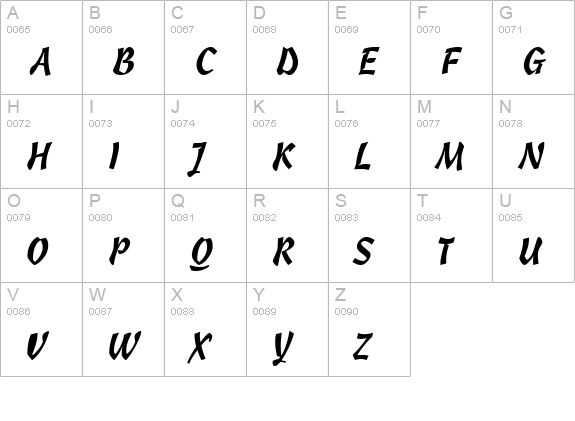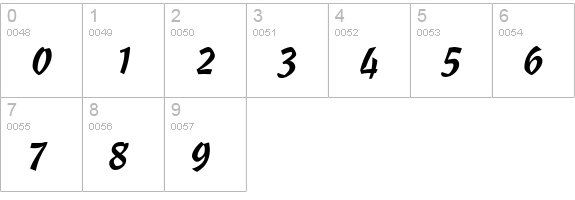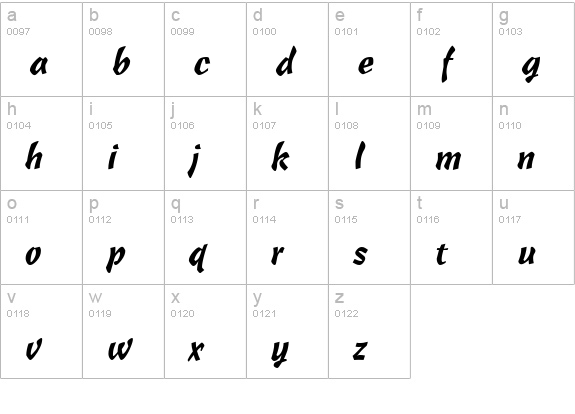
Apache Font Details
The Apache font is a stunning display typeface that exudes elegance and sophistication. With its sleek lines and modern design, Apache is perfect for creating eye-catching headlines, logos, and branding materials. This versatile font is suitable for a wide range of projects, from print to digital media. What makes Apache even more amazing is that it is completely free to download at FontsMarket.com. That's right, you can access this high-quality font without any cost, making it a valuable addition to your font collection. Don't miss out on the opportunity to enhance your designs with the beautiful Apache font today!